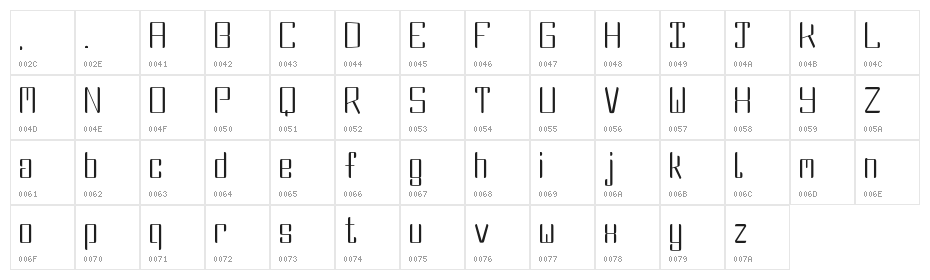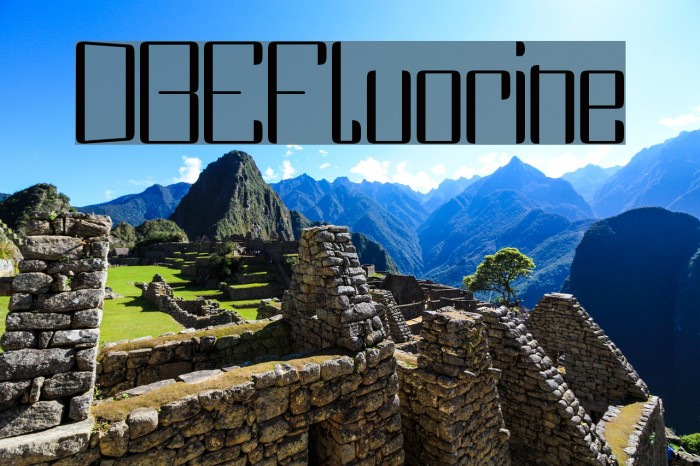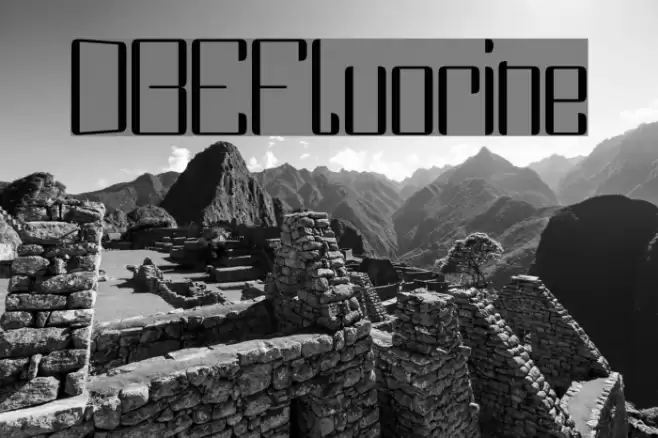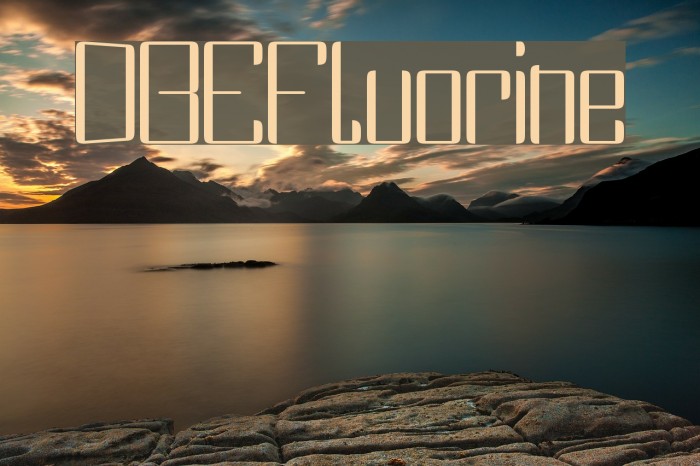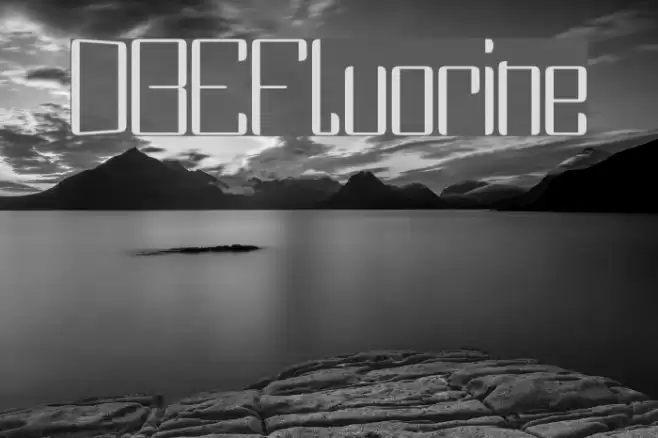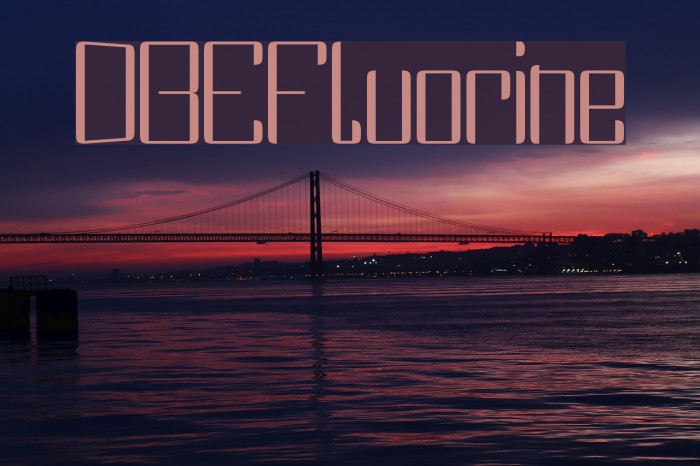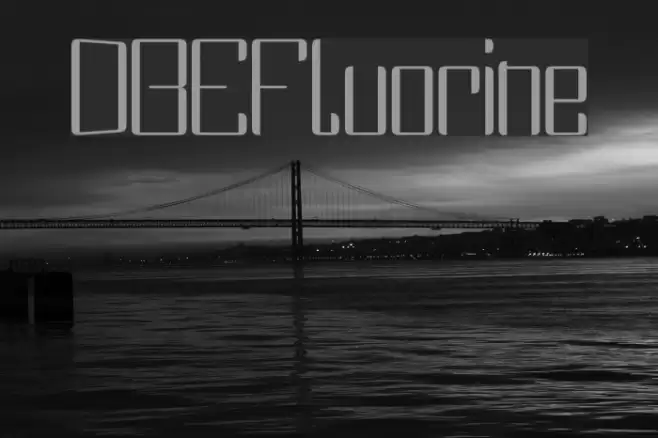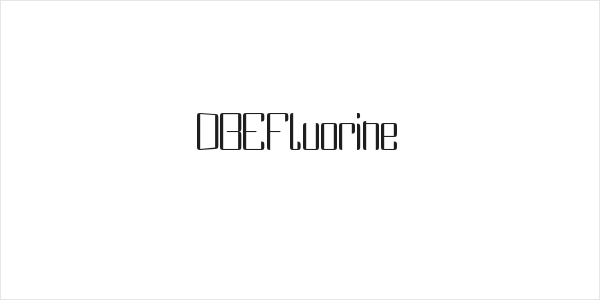
DBEFluorine Font
DBEFluorine Description
This font features a modern, geometric design with a distinctively futuristic aesthetic. The characters are composed of straight lines and sharp angles, creating a clean and structured appearance. The uppercase letters are tall and narrow, while the lowercase letters maintain a consistent style with slightly more rounded edges. The numerals and special characters follow the same design principles, ensuring uniformity across all glyphs. The font's unique style makes it stand out, offering a sleek and contemporary look that is both eye-catching and versatile.
| Proposed Projects | Ideal for technology branding, sci-fi themed projects, modern posters, and digital interfaces. |